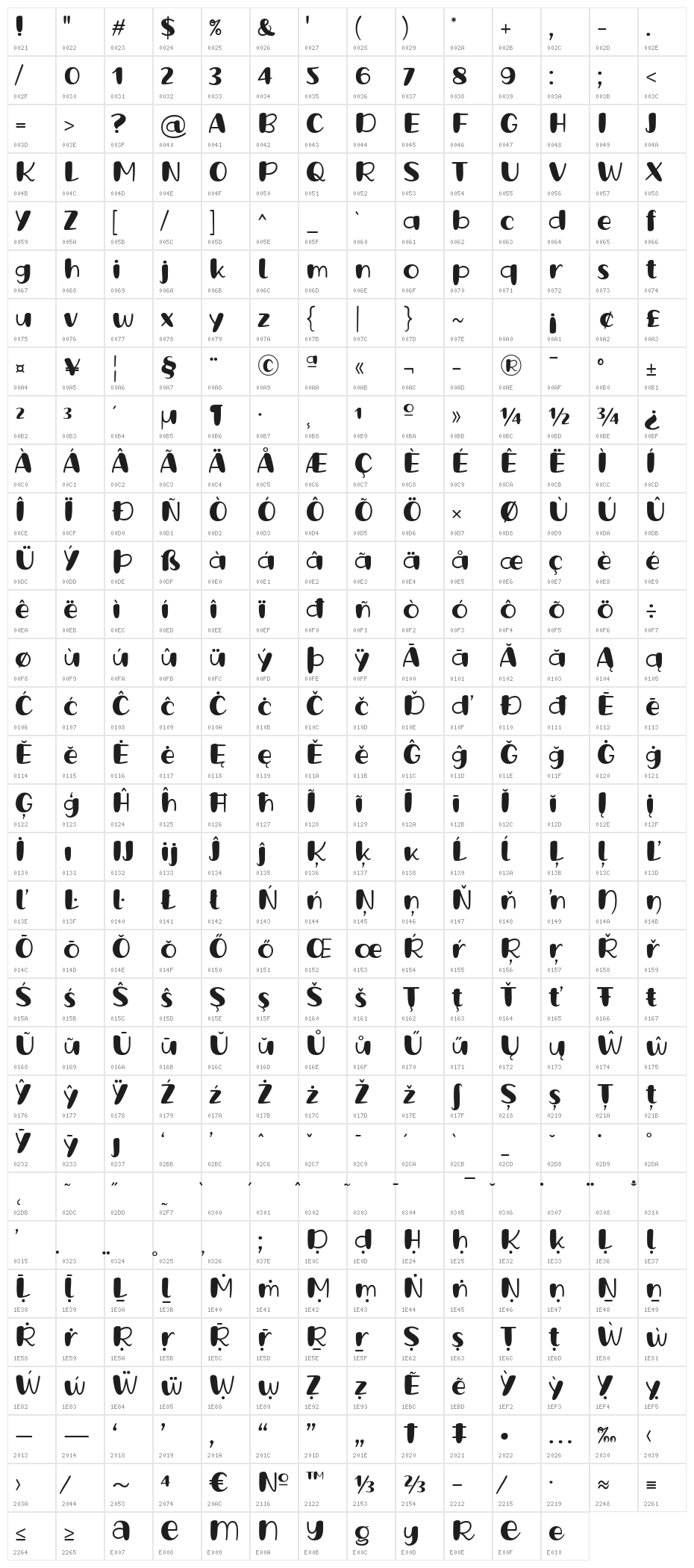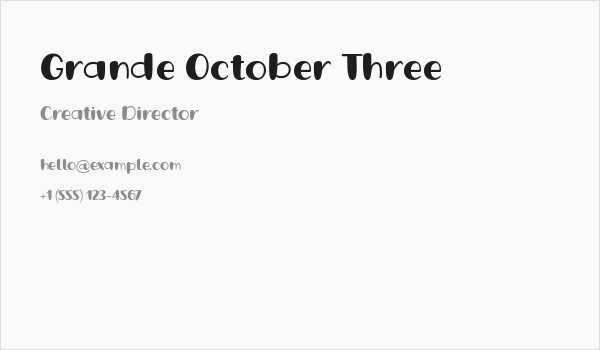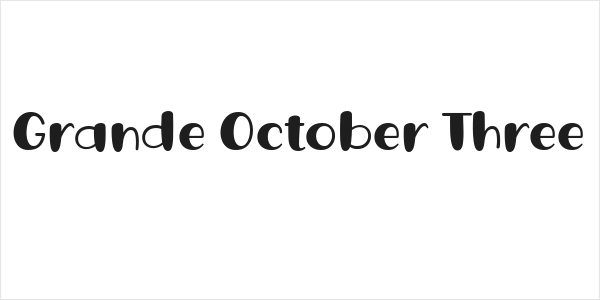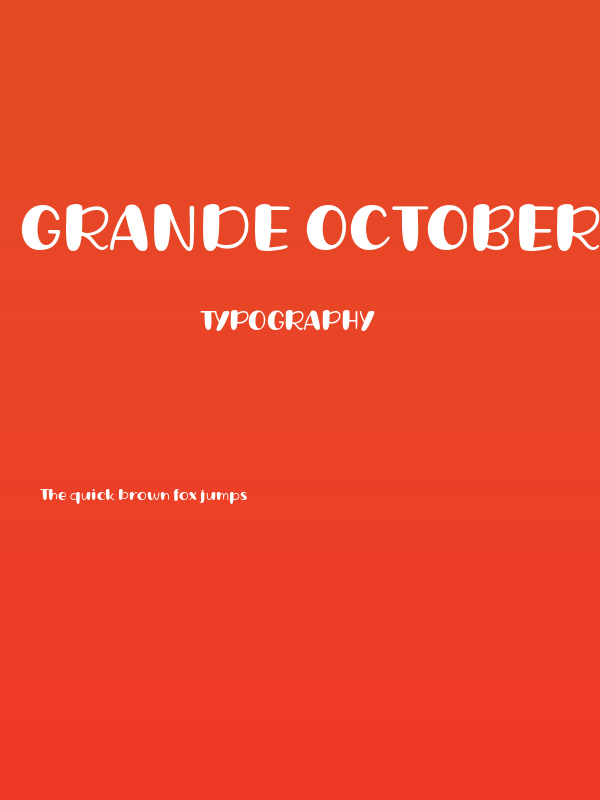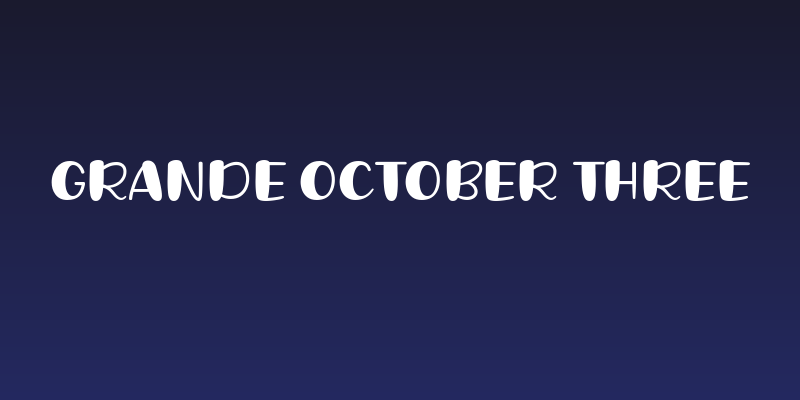
Grande October Three Font
Grande October Three Description
This playful and bold font features rounded, thick strokes that convey a sense of fun and approachability. The letters have a bubbly, almost whimsical appearance, with a consistent weight throughout. The uppercase characters are slightly more structured, while the lowercase letters maintain a smooth, flowing style. Numbers and special characters are designed to match the overall playful aesthetic, making them ideal for creative and informal projects. The font's unique style is both eye-catching and easy to read, making it suitable for a variety of design applications.
| Overall Style | Playful |
| Proposed Projects | Ideal for children's books, playful branding, party invitations, and creative posters. |